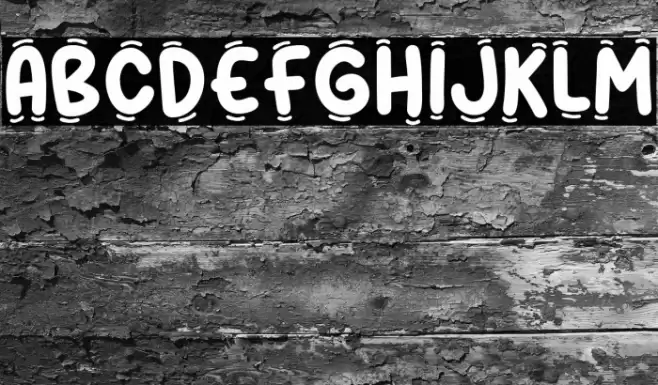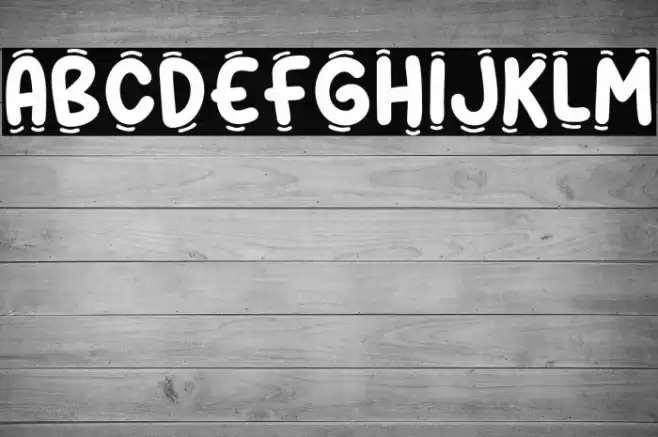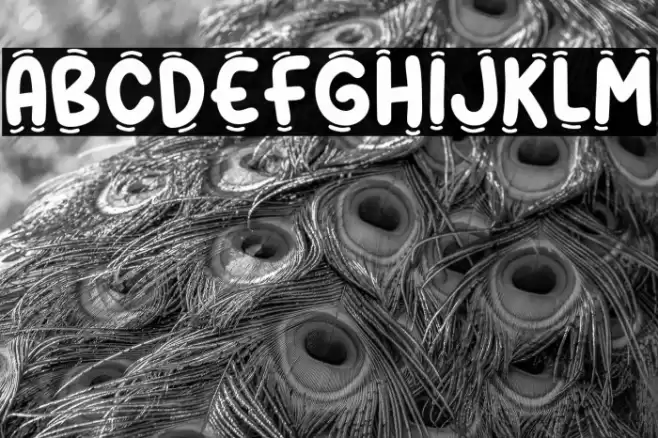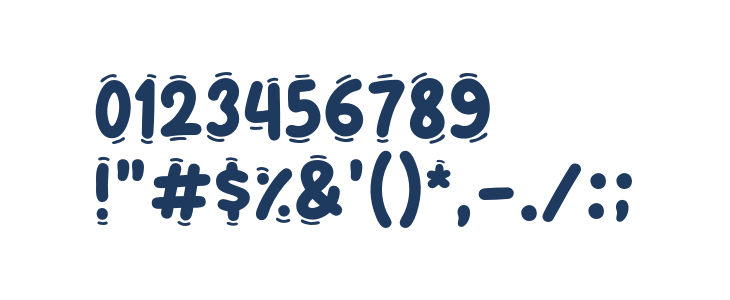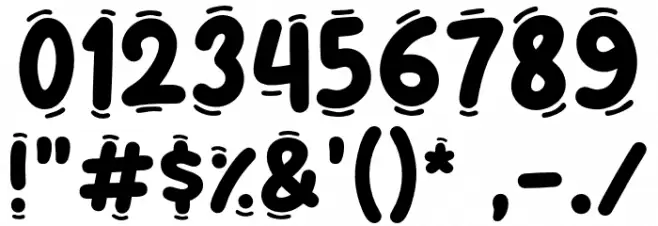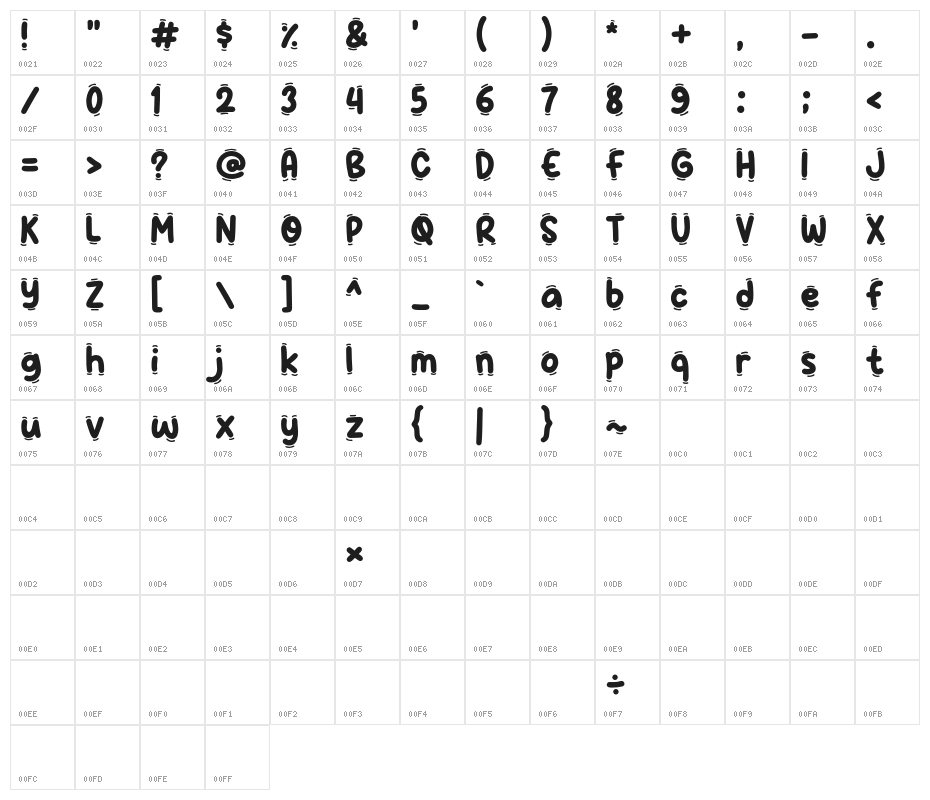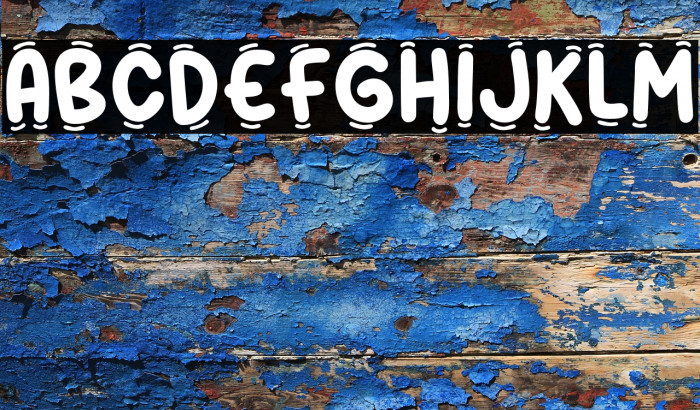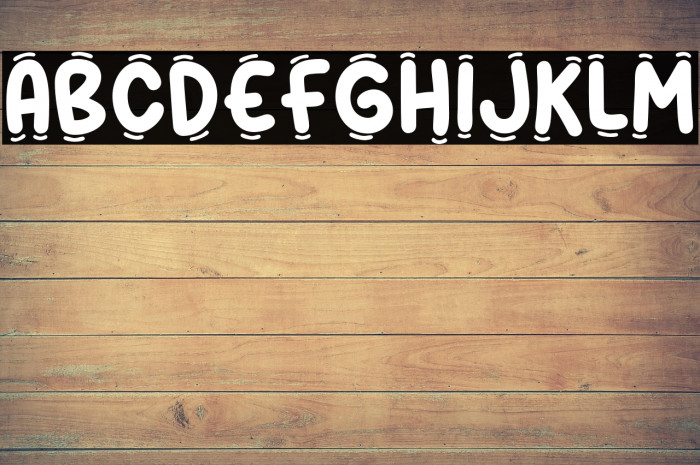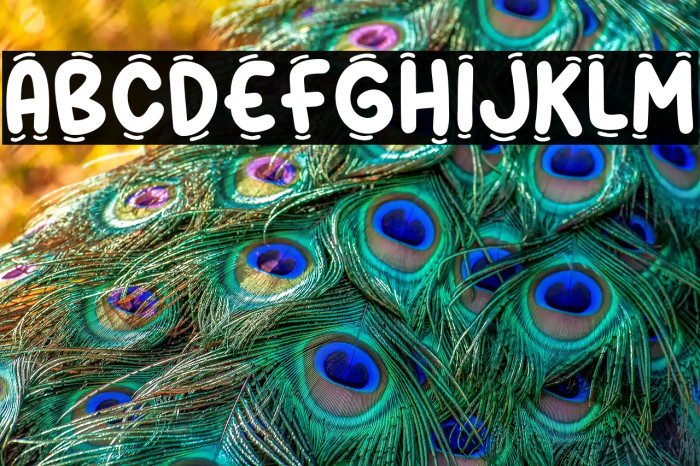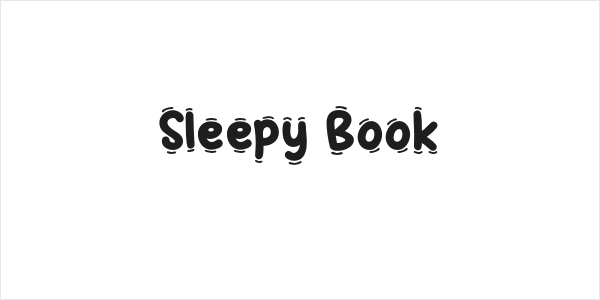
Sleepy Book Font
Sleepy Book Description
This playful and whimsical font features bold, rounded characters with a unique, wavy outline that gives the impression of movement or a dreamy, sleepy vibe. The letters are evenly spaced, with a consistent thickness that adds to the font's approachable and friendly appearance. The design is reminiscent of hand-drawn lettering, making it ideal for projects that require a touch of fun and creativity. Its boldness ensures readability while maintaining a casual and informal tone.
A playful, bold font with wavy outlines and a whimsical style from Uncategorized fonts.
- Font: Sleepy Book
- Proposed Projects: Ideal for children's books, playful branding, party invitations, and creative posters.
- Overall Style: Whimsical, Playful